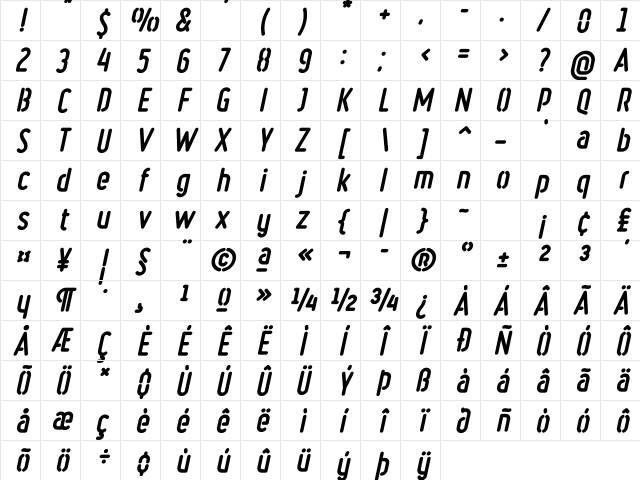
Ruler Stencil Heavy Italic
Foundry: Levi Szekeres
Designer: Levi Szekeres
Design Context for Ruler Stencil Heavy
Ruler Stencil Heavy borrows the utilitarian aesthetic of stencil lettering, with its characteristic cutaways and no-frills construction lending an industrial edge. The slanted form adds forward momentum and visual energy.